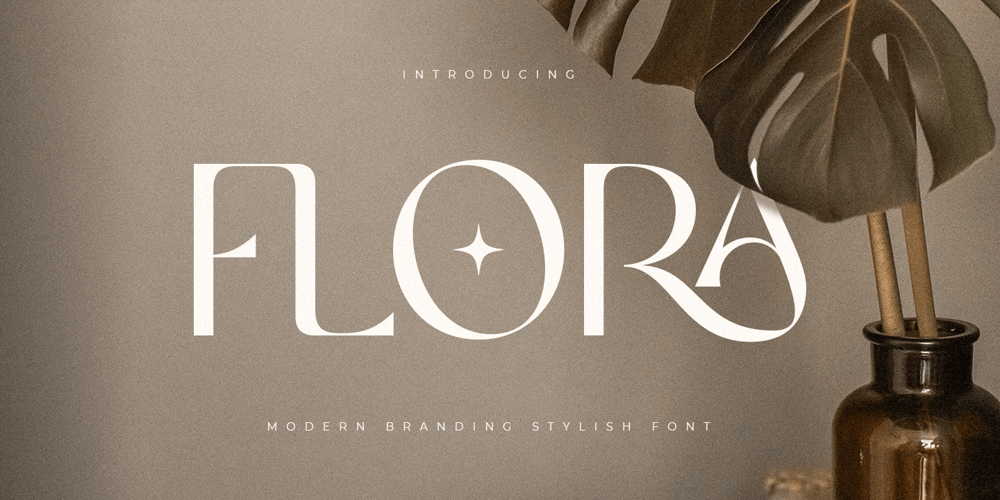
Flora
Flora Font Family was designed by Zamroni Hamzah and published by Sensatype Studio. Flora contains 1 styles and family package options. A new Sans serif that we created special for branding needs, with extra ligature in unique shape add value of your brand. It so nice to leverage designer or product owner that need solutions to make their design look more stylish and modern. And specially for Flora font, We prepared any ligatures, and any alternate characters to help you create unlimited variations for your creative needs.Flora – Modern Branding Stylish Font ready with: Any options to get creative variations (combination of Alternate and Ligatures) Preview as a inspirations that you can do with Satisfy font Ready with Lowercase and Uppercase characters Wish you enjoy our font!